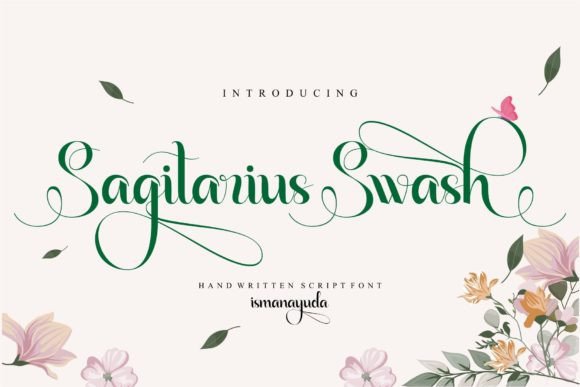
Introducing Sagittarius Swash – The Next-Level Script Font for Wedding Videos!
Welcome to the world of elegance, creativity, and timeless beauty, where Sagittarius Swash, our enchanting script font, takes center stage. Embrace the free-flowing style of our first handwritten font, masterfully crafted to bring a touch of personal flair to your visual masterpieces.
Step into a realm of visual storytelling, where Sagittarius Swash weaves its magic onto your wedding videos, transforming them into captivating keepsakes that capture the essence of your special day. This font is not just a collection of letters; it's an artistic expression that speaks to the heart, evoking emotions, and creating lasting memories.
Whether you're a creative professional, a budding filmmaker, or a passionate storyteller, Sagittarius Swash is your ultimate tool to elevate your wedding videos to new heights. Its fluid strokes and elegant curves dance across the screen, adding a touch of grace and sophistication that will leave your audience spellbound.
With Sagittarius Swash, you can:
- Craft wedding videos that radiate a sense of timeless elegance and romance.
- Create enchanting invitations and save-the-date cards that set the tone for your special day.
- Design breathtaking posters and banners that capture the essence of your love story.
- Add a touch of sophistication to your cafe displays, menus, and promotional materials.
The possibilities are endless with Sagittarius Swash. Let your creativity soar as you explore the endless possibilities of this versatile font. The flowing lines and graceful curves will effortlessly complement your visual creations, adding a touch of magic to every frame.
Don't settle for ordinary fonts that fail to capture the essence of your wedding day. Embrace the extraordinary with Sagittarius Swash and create a visual symphony that will leave a lasting impression on your audience.
Join the ranks of creative visionaries who have discovered the power of Sagittarius Swash. Transform your wedding videos into captivating masterpieces, leaving your viewers captivated and inspired.